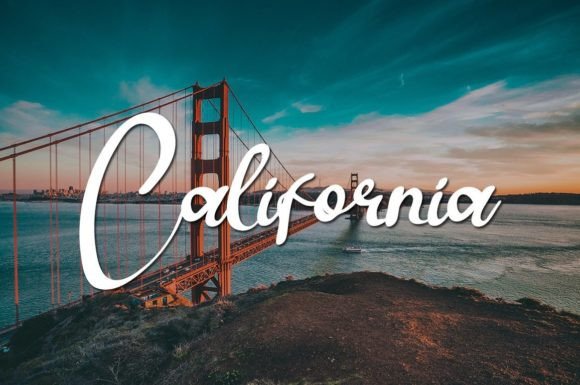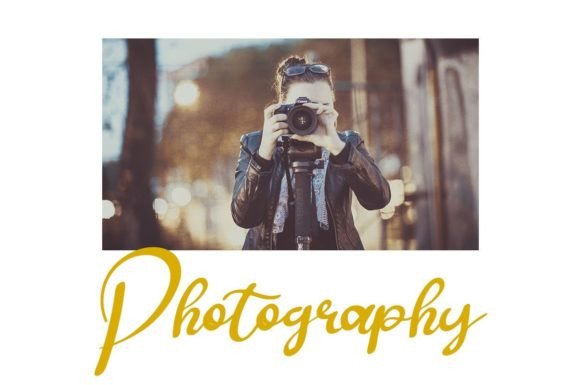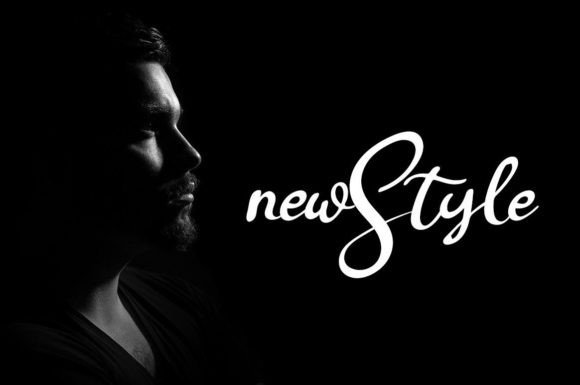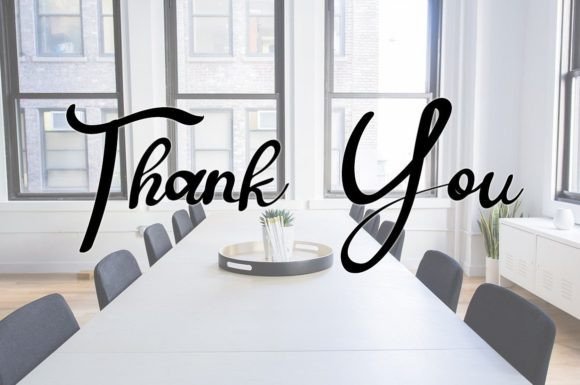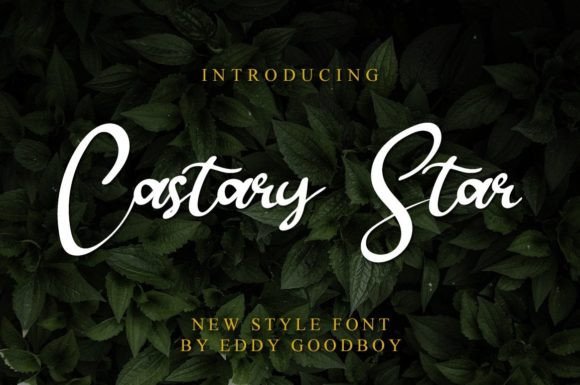
Introducing Castary Star Font: The Ultimate Handwritten Font for Your Creative Projects
Are you a designer, crafter, or business owner looking for a beautiful and sweet handwritten font to elevate your designs? Look no further than Castary Star Font! This stunning font is fresh, clean, and elegant, making it the perfect addition to any project. In this article, we’ll dive into the features and benefits of Castary Star Font, and explore how it can add a joyful touch to your designs.
What is Castary Star Font?
Castary Star Font is a beautiful and sweet handwritten font that is perfect for a variety of creative projects. Its fresh, clean, and elegant design makes it ideal for use in designs where a personal touch is desired. Whether you’re creating a logo, branding materials, or social media graphics, Castary Star Font is sure to impress.
Key Features of Castary Star Font
• Handwritten Design: Castary Star Font features a beautiful handwritten design that adds a personal touch to any project.
• Fresh and Clean: The font’s fresh and clean design makes it perfect for use in modern and contemporary designs.
• Elegant: Castary Star Font’s elegant design makes it ideal for use in luxury brands, wedding designs, and other high-end projects.
• Versatile: This font can be used in a variety of projects, from logos and branding materials to social media graphics and more.
Benefits of Using Castary Star Font
By using Castary Star Font in your designs, you can add a joyful touch that sets your project apart from the rest. Here are just a few benefits of using this amazing font:
• Stand Out: Castary Star Font’s unique design makes it perfect for designers and businesses looking to stand out from the crowd.
• Personal Touch: The font’s handwritten design adds a personal touch to any project, making it perfect for use in designs where a human element is desired.
• Elegance: Castary Star Font’s elegant design makes it ideal for use in luxury brands, high-end designs, and other projects where sophistication is key.
• Easy to Read: The font’s clean design makes it easy to read, even at small sizes.
How to Use Castary Star Font in Your Designs
Using Castary Star Font in your designs is easy! Here are a few tips to get you started:
• Pair with Other Fonts: Castary Star Font pairs well with other fonts, making it easy to create a unique and visually appealing design.
• Use in Logos and Branding Materials: The font’s elegant design makes it perfect for use in logos and branding materials.
• Add to Social Media Graphics: Castary Star Font’s fresh and clean design makes it ideal for use in social media graphics, such as Facebook posts and Instagram stories.
• Experiment with Colors: The font’s clean design makes it easy to pair with a variety of colors, so don’t be afraid to experiment and find the perfect combination for your design.
In conclusion, Castary Star Font is a beautiful and sweet handwritten font that is perfect for designers, crafters, and businesses looking to add a joyful touch to their designs. Its fresh, clean, and elegant design makes it ideal for use in a variety of projects, from logos and branding materials to social media graphics and more. With its versatility, elegance, and ease of use, Castary Star Font is sure to become a favorite in your design arsenal.